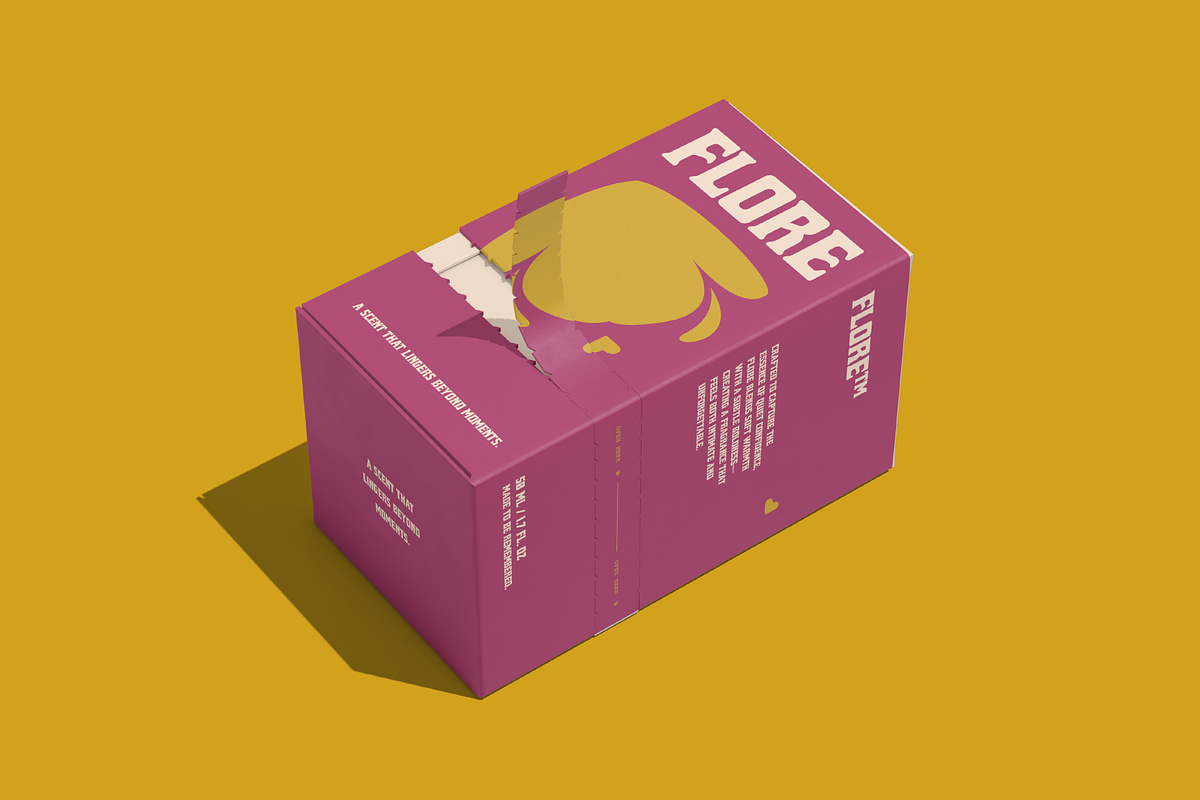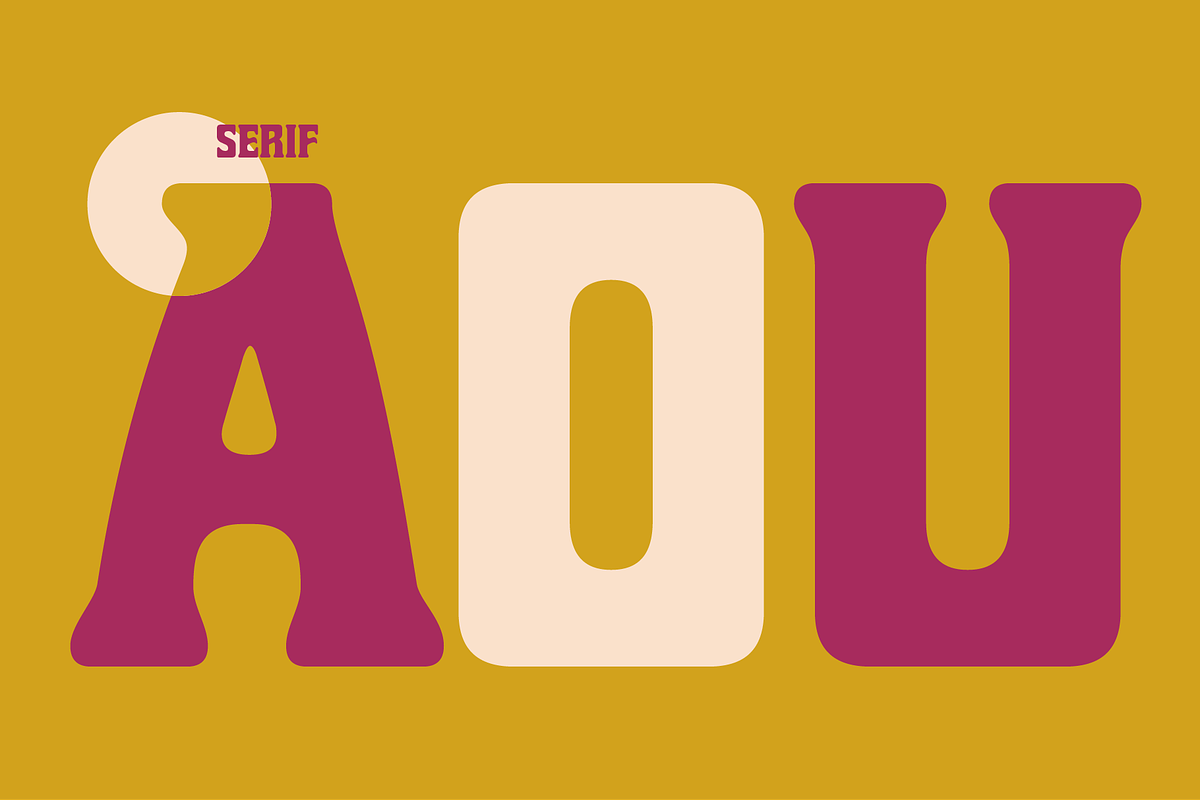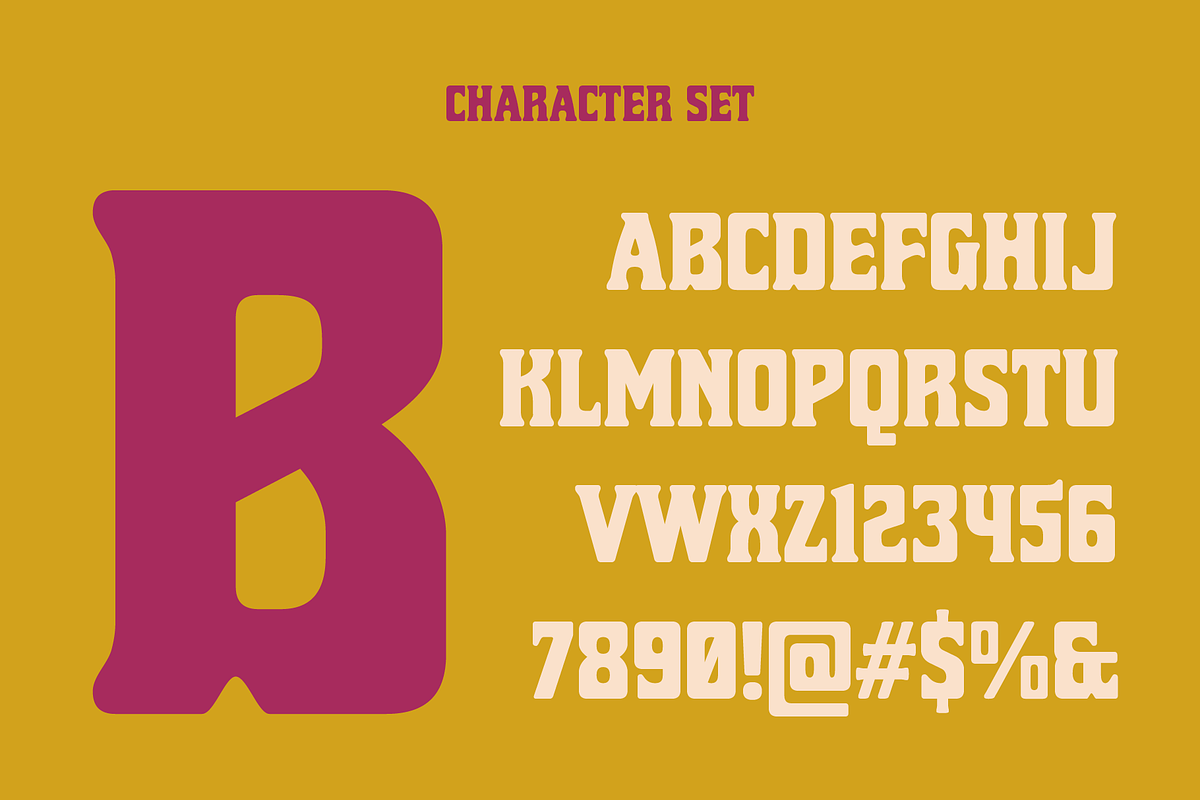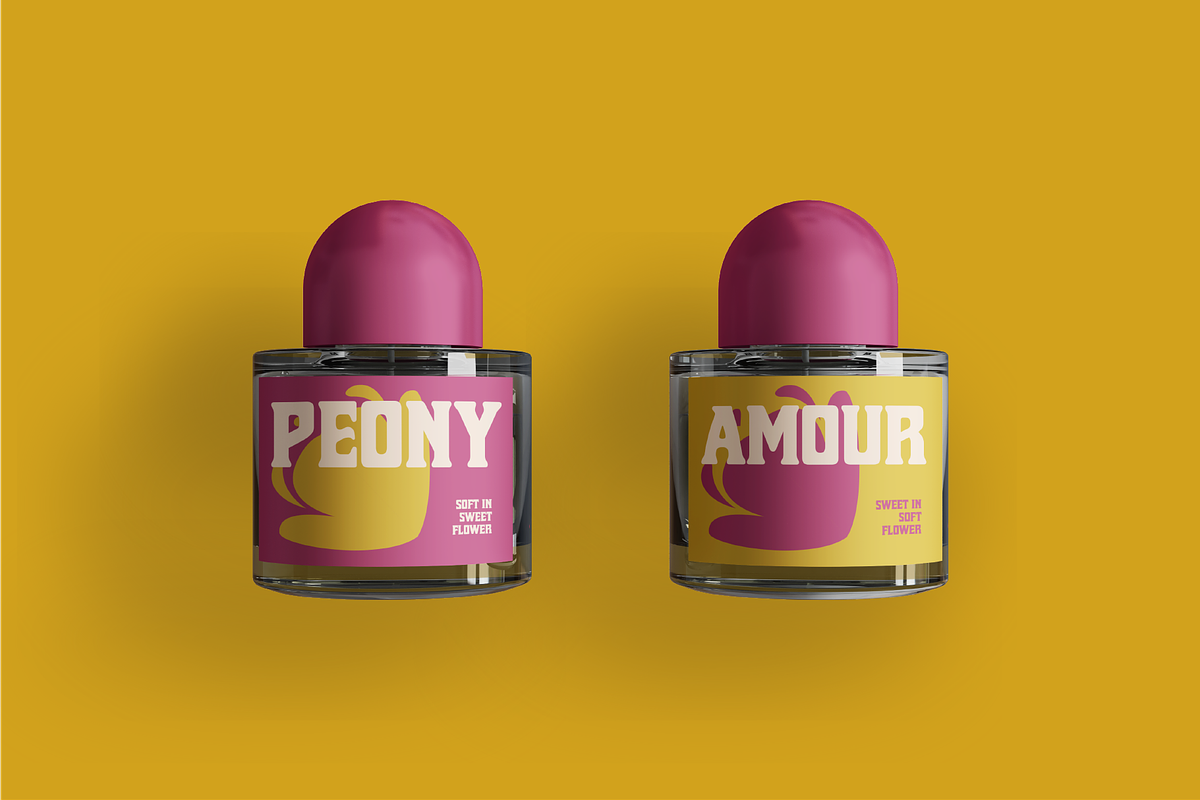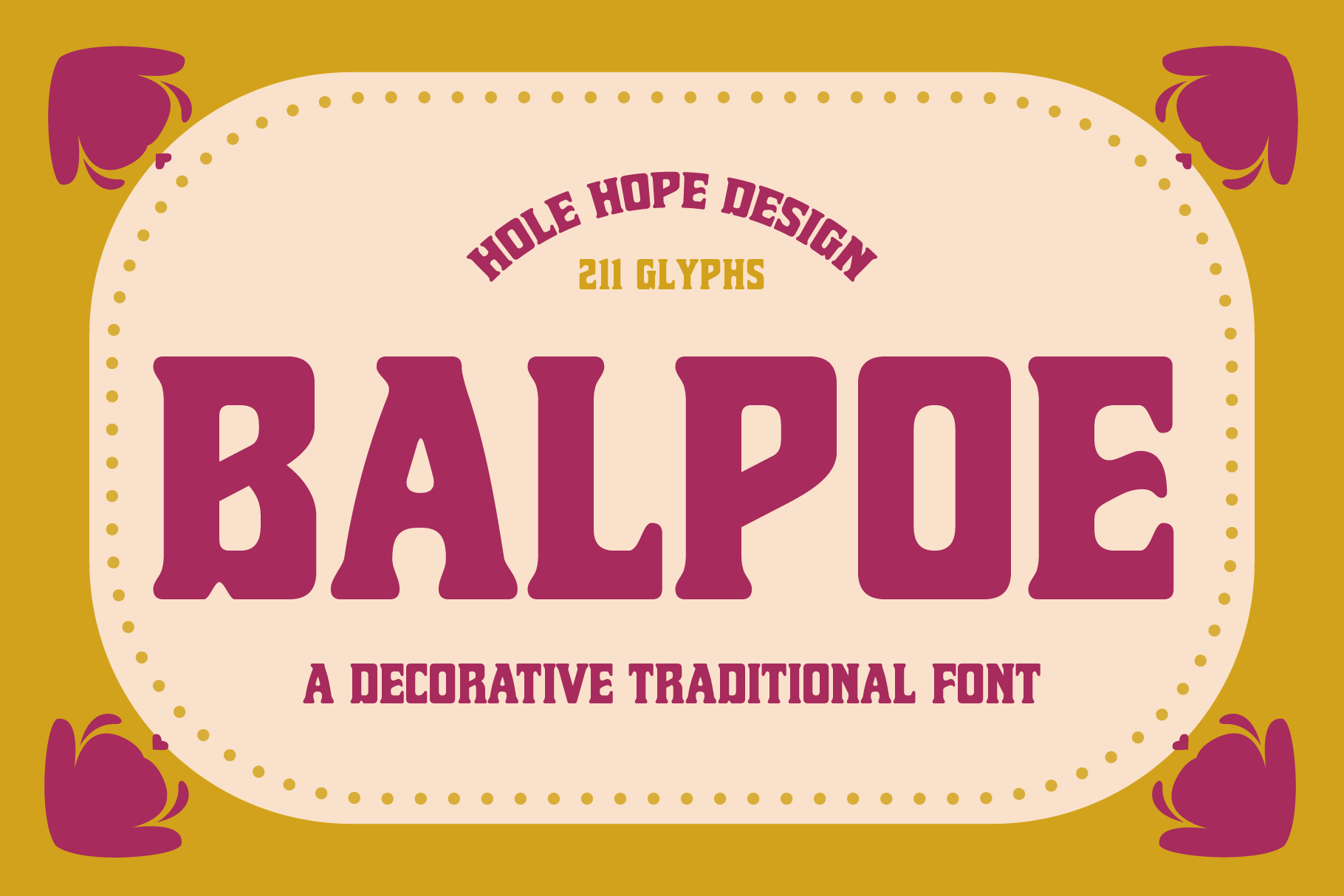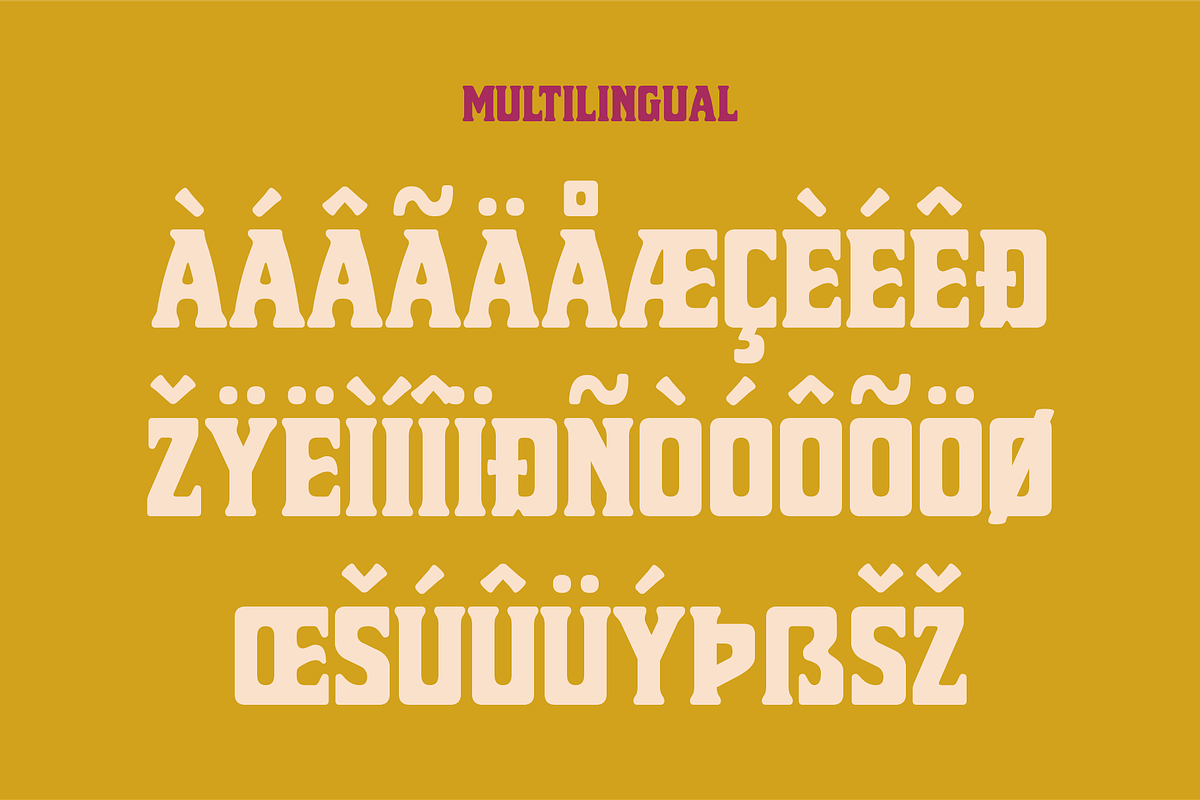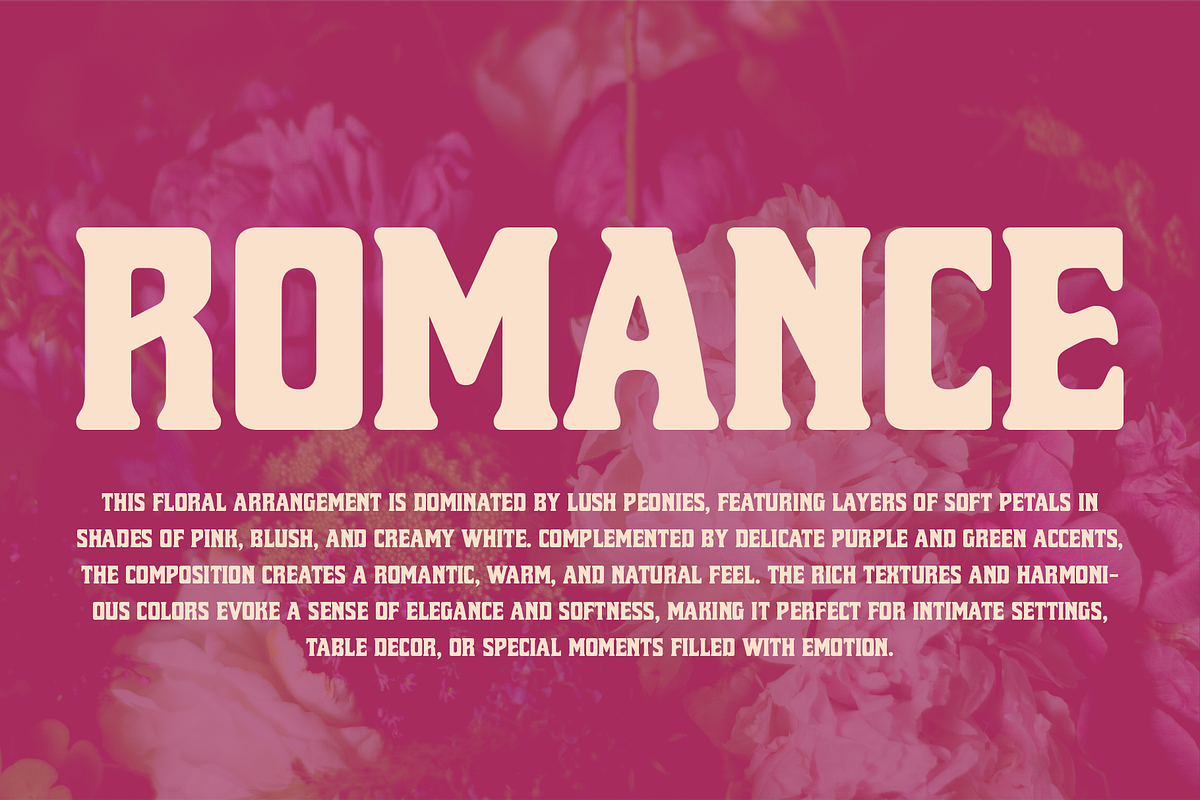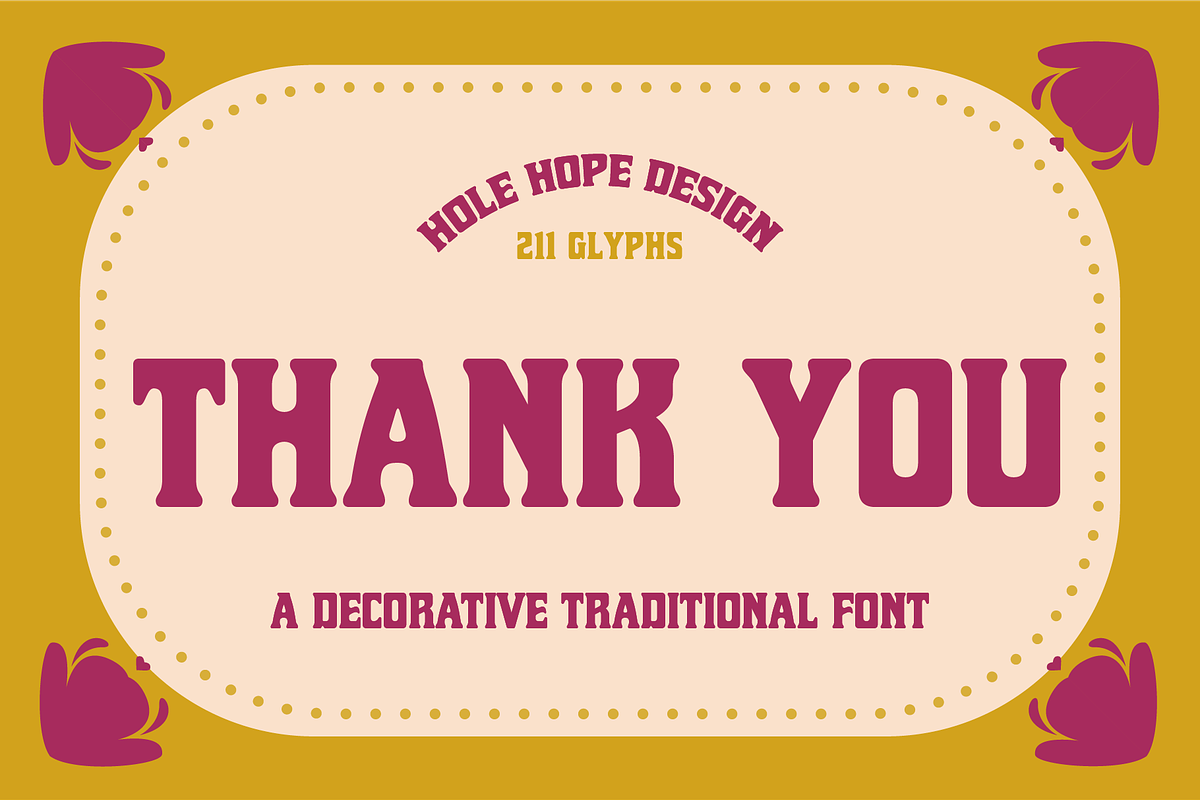
Balpoe – Decorative Traditional Font
Balpoe – Decorative Traditional Font is a striking display serif typeface that blends vintage elegance with rich cultural character. Inspired by classic letterforms and traditional artistry, this font features refined serifs, ornamental details, and subtle tribal and folk influences that give it a unique, timeless presence.
With its fancy yet balanced structure, Balpoe-A is perfect for designs that aim to feel heritage-driven and sophisticated—whether for branding, packaging, editorial layouts, logos, or cultural-themed projects. The classic foundation keeps it versatile, while its decorative touches add just the right amount of personality and depth.
If you’re looking for a display serif font that combines vintage charm, folk-inspired details, and a bold, classic aesthetic, Balpoe-A delivers a distinctive look that stands out with elegance and authenticity.
Balpoe – Decorative Traditional Font features:
- Character Set
- Punctuation & Numbers
Elevate and explore the design possibilities with this Fancy Tribal Font!